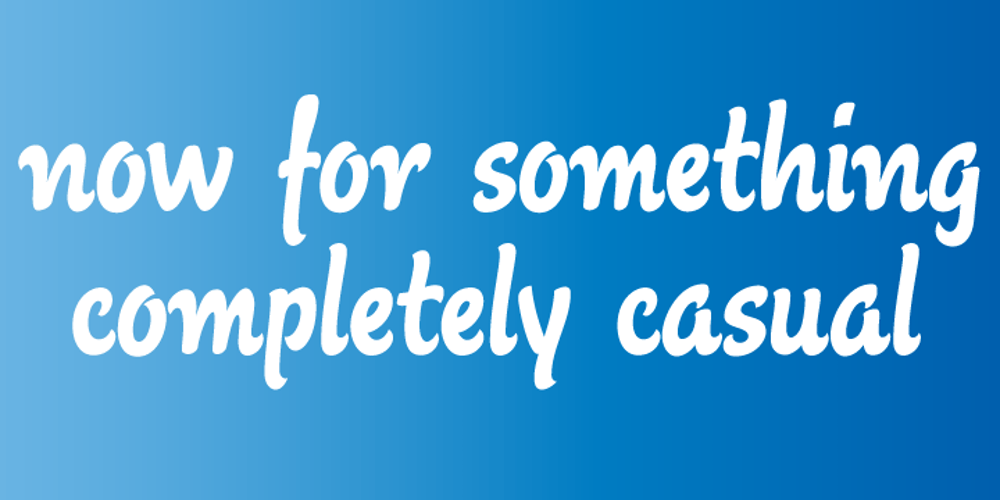
Agent Font Family was designed by Hans van Maanen, Martin Meijer and published by Canada Type. Agent contains 1 styles and family package options. Agent was inspired by the classic fun lettering of 1930s Dutch alphabetician Martin Meijer. Casual and playful, Agent is a carefully considered amalgam of the art brush’s organic forms and the easily read, ironic forms of the comic book. Ideal for signs as well as packaging of products aiming to be memorable and fun. Agent ships in all common formats, and contains plenty of alternates, as we all as support for a wide range of Latin-based languages.